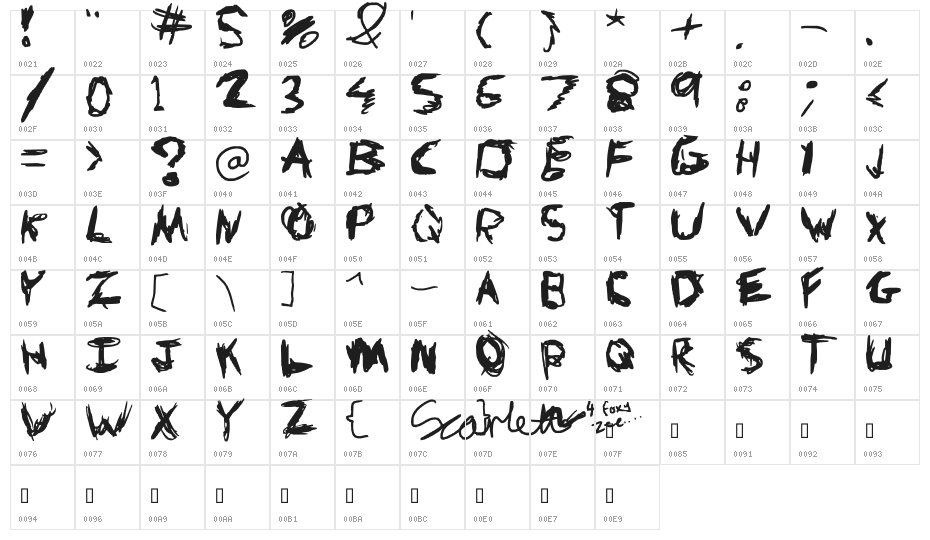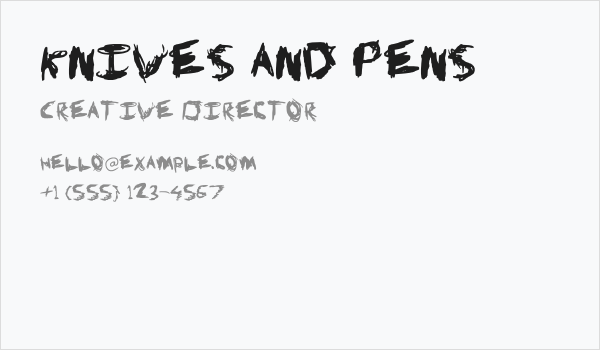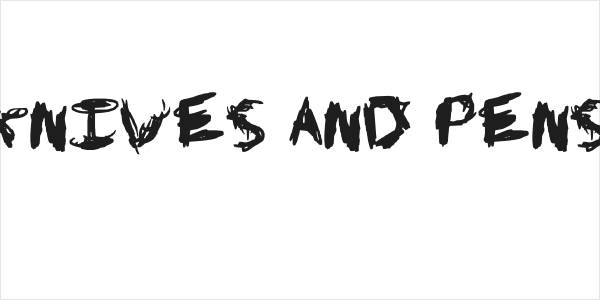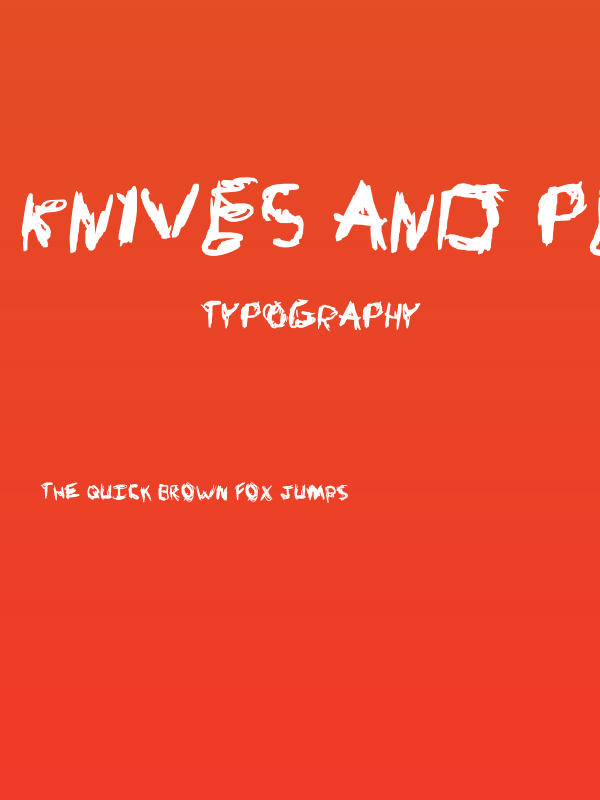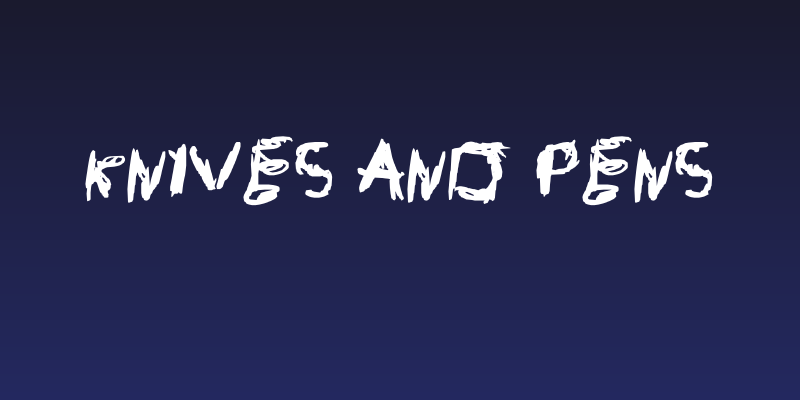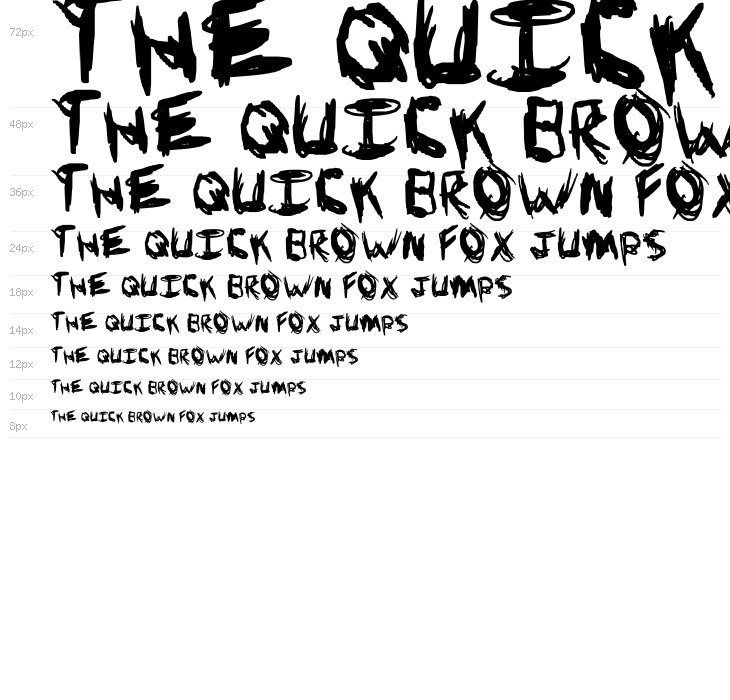
Knives and Pens Font
Knives and Pens Description
This font features a bold, distressed style with a hand-drawn appearance. The characters are irregular and jagged, giving an edgy and rebellious feel. The strokes are thick and uneven, creating a sense of movement and energy. This font is highly decorative and captures attention with its unique, grunge-inspired look. The uppercase and lowercase letters maintain a consistent style, while the numbers and special characters complement the overall aesthetic. The font's chaotic and artistic nature makes it stand out, perfect for projects that require a bold statement.
| Use Case | Logos, Posters, Album Covers |
| Proposed Projects | Ideal for music album covers, posters, graffiti art, and edgy branding projects. |